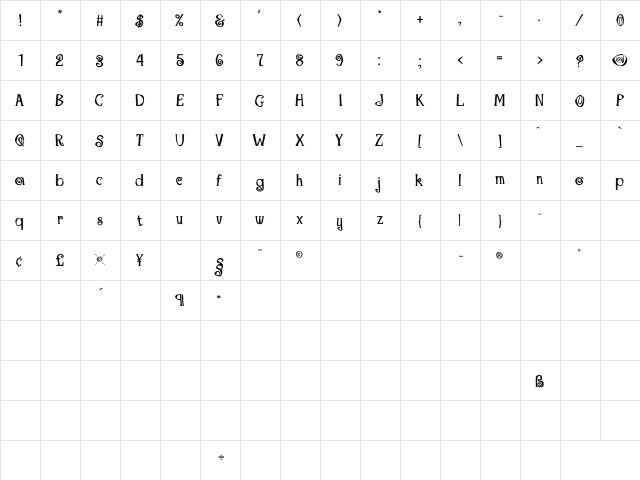
Copacabana Medium Regular
Design Context for Copacabana Medium Typeface
Copacabana Medium is a composed and adaptable typeface that performs quietly and consistently across a wide range of design contexts.